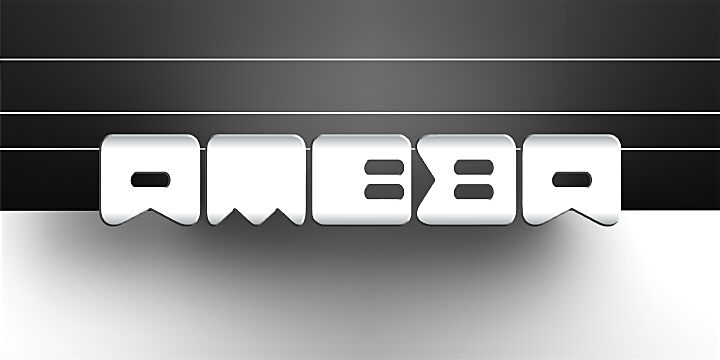
Ameba by Carlos Matteoli is a free graffiti display font with swollen, tightly packed letters and a deliberately distorted silhouette. Small cutouts puncture the dense, rounded forms.
Merchandise gives this lettering an immediate home, since its broad shapes can turn a name into a compact graphic. Music posters, event graphics, and streetwear branding also benefit from the irregular notches and exaggerated curves that recall sticker art and painted walls. The playful underground style is especially suited to youth, skate, and alternative music audiences.